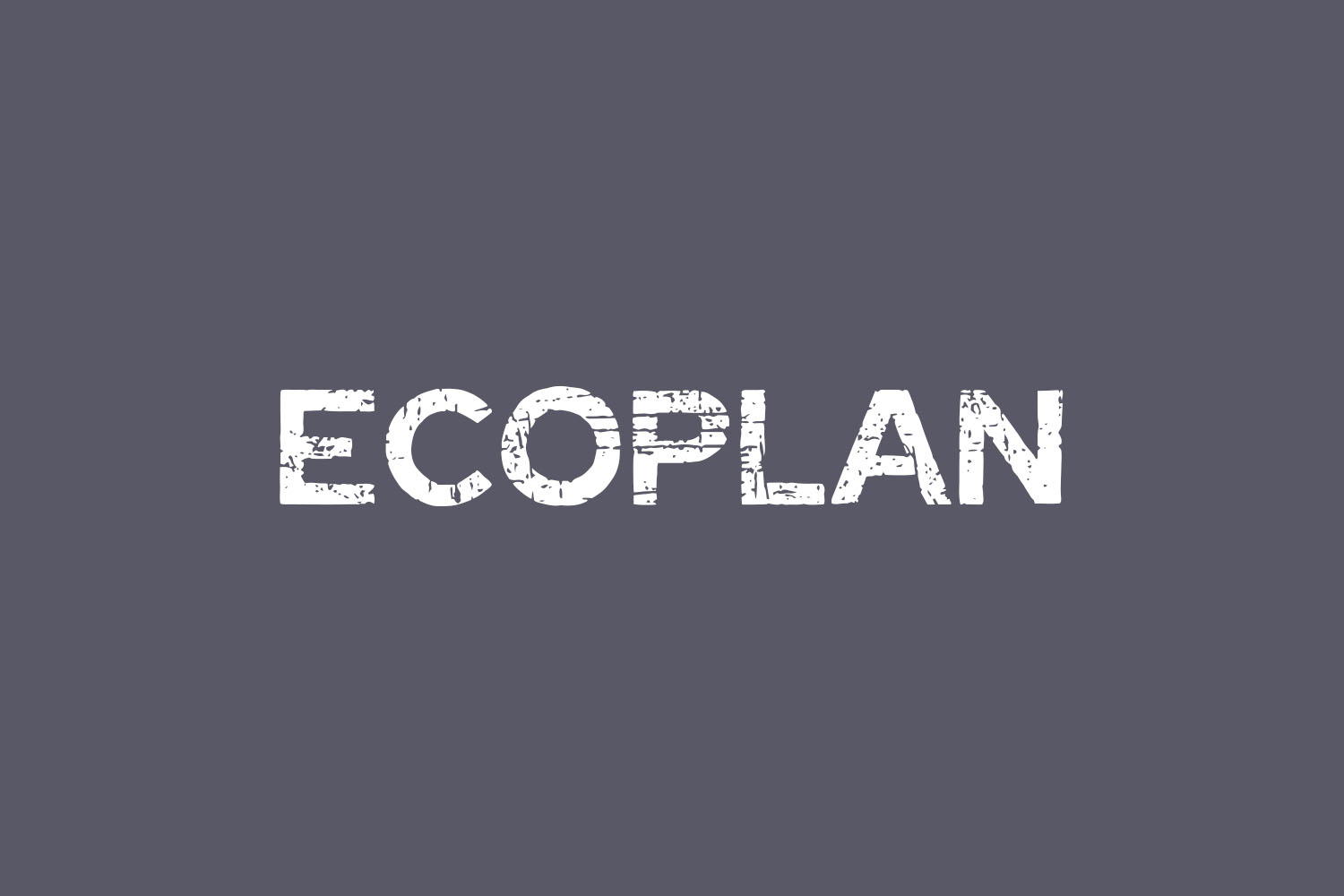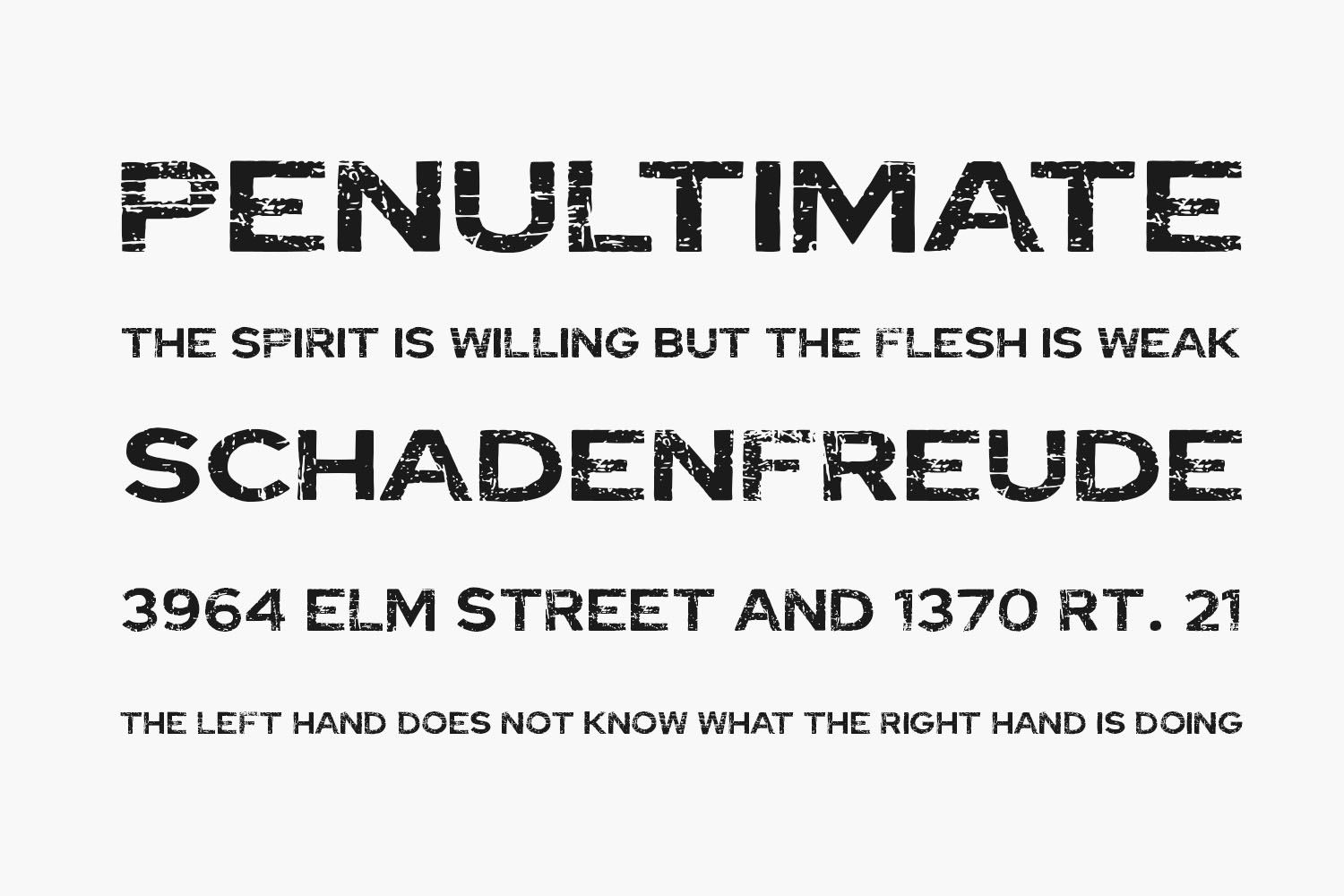
Ecoplan Free Font presents a contemporary rough sans-serif typeface ideal for posters, logos, magazines, book covers, banners, and beyond! Elevate your designs with this distinctive font, perfect for a wide range of creative projects. Incorporate this unique typeface into your ideas and witness the transformative impact it brings, making your creations truly stand out. Ecoplan Free Font is free for personal use only. Please purchase the full version for commercial use.